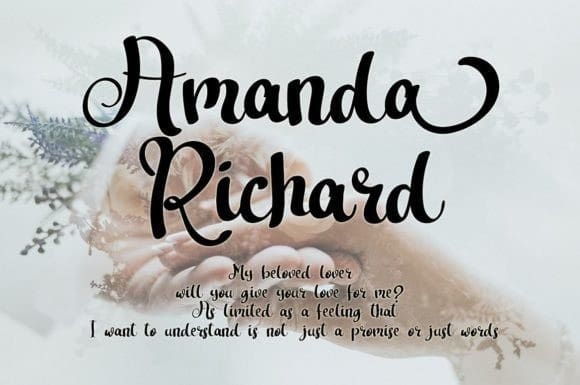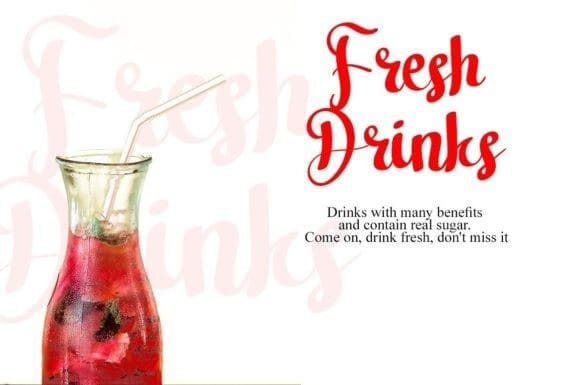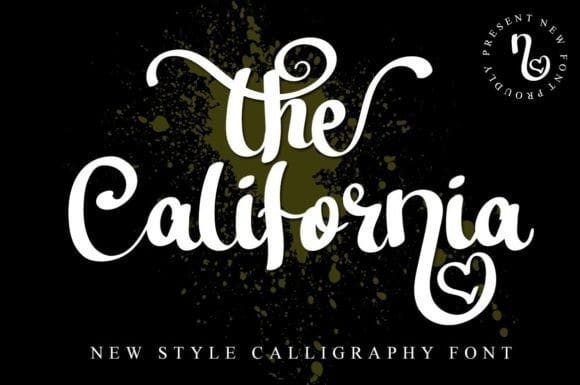
The California Font
The California Font is a beautiful and sweet font. It is fresh, clean, and elegant. This font will look amazing in a great amount of projects, both formal and informal. It will add an incredibly joyful touch to your designs.Fonts designed to simplify your design. By using this font, your business will look more beautiful